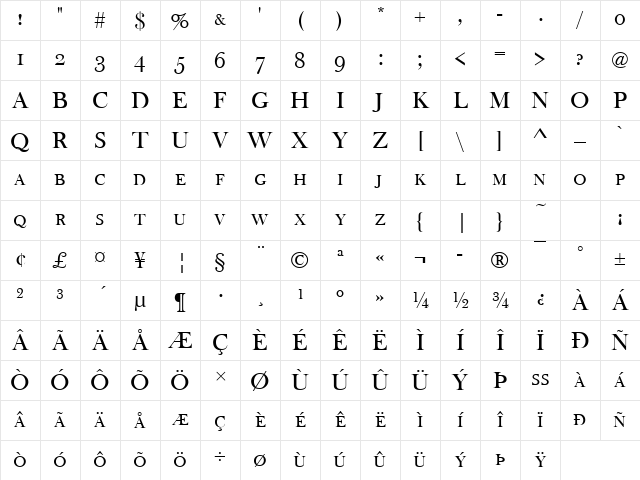
Baskerville Old Becker Caps Regular
Design Context for Baskerville Old Becker Caps
Baskerville Old Becker Caps is a composed and adaptable typeface that performs quietly and consistently across a wide range of design contexts.